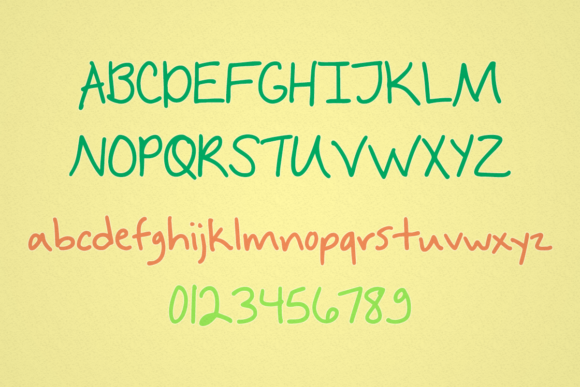
Introducing And This Happened Font: The Perfect Handwritten Touch for Your Projects
Are you tired of using generic, overused fonts in your designs? Do you want to add a personal touch that sets your projects apart? Look no further than And This Happened, a natural handwritten font that will bring an authentic feel to your work. In this article, we’ll dive into the world of And This Happened, exploring its unique features, benefits, and uses.
What is And This Happened Font?
And This Happened is a beautiful, handwritten font that captures the essence of natural, human writing. With its unique character and subtle imperfections, this font is perfect for designers, crafters, and anyone looking to add a personal touch to their projects. Whether you’re working on a logo, invitation, or social media graphic, And This Happened is the perfect choice.
Key Features of And This Happened Font
- Natural Handwritten Style: And This Happened boasts a genuine, handwritten look that will make your designs feel more approachable and relatable.
- Unique Character: Each letter and number has been carefully crafted to ensure that your text stands out from the crowd.
- Subtle Imperfections: The font includes subtle imperfections that mimic the natural writing process, giving your text a sense of authenticity.
- Easy to Read: Despite its handwritten style, And This Happened is surprisingly easy to read, making it perfect for both headings and body text.
Benefits of Using And This Happened Font
- Adds a Personal Touch: And This Happened helps you connect with your audience on a more personal level, making your designs feel more relatable and engaging.
- Versatile: This font is suitable for a wide range of projects, from logos and branding to invitations, social media graphics, and more.